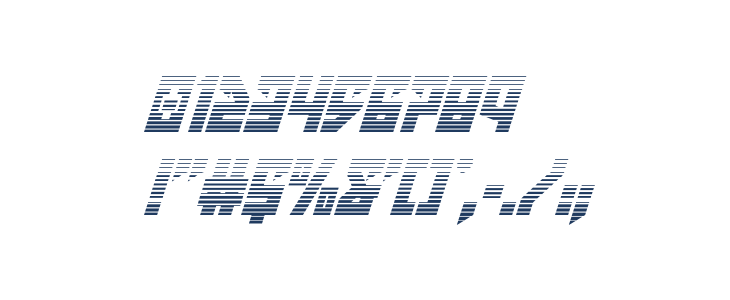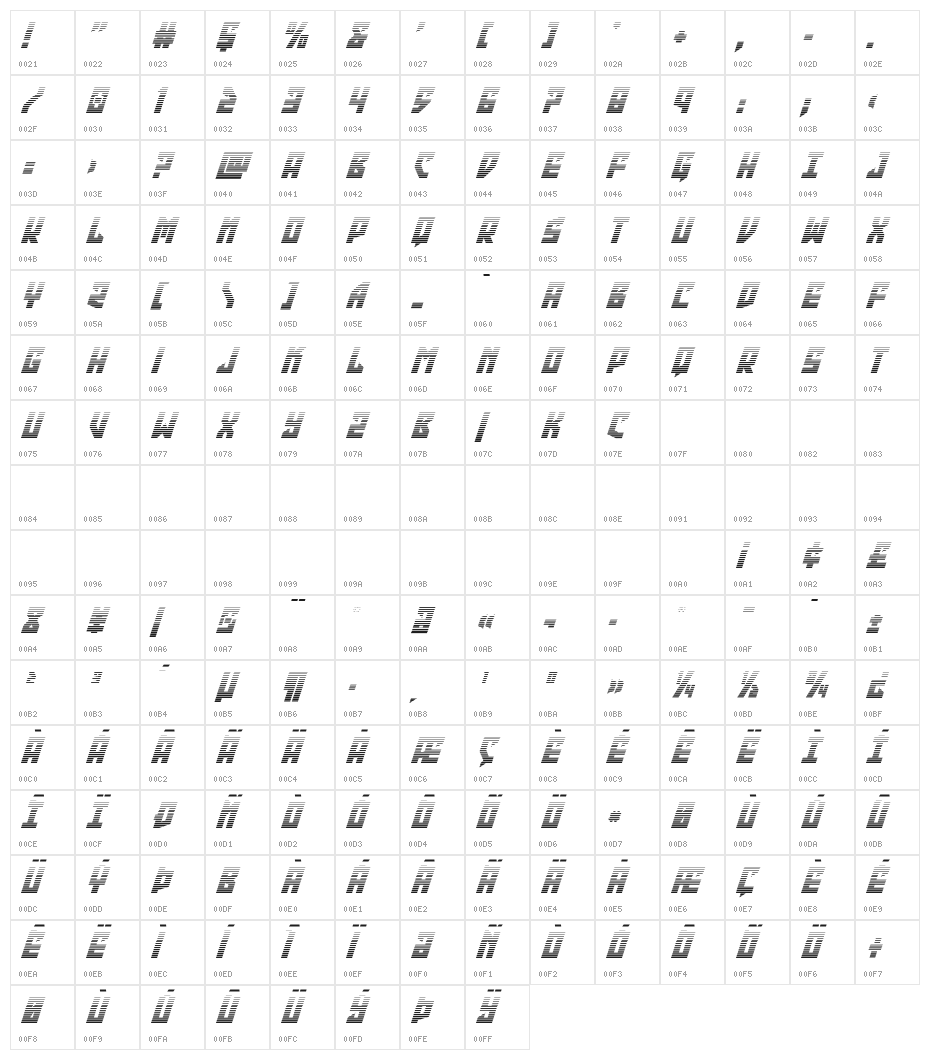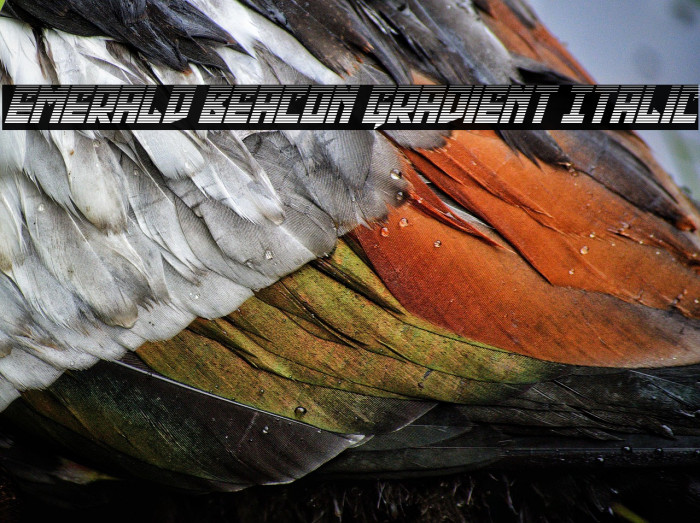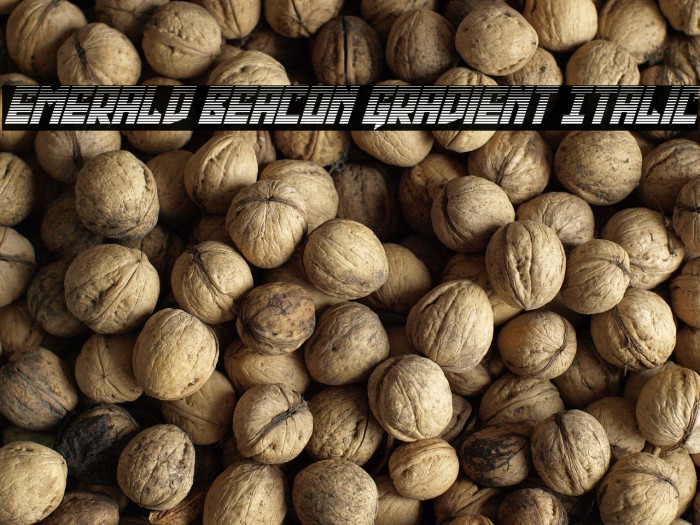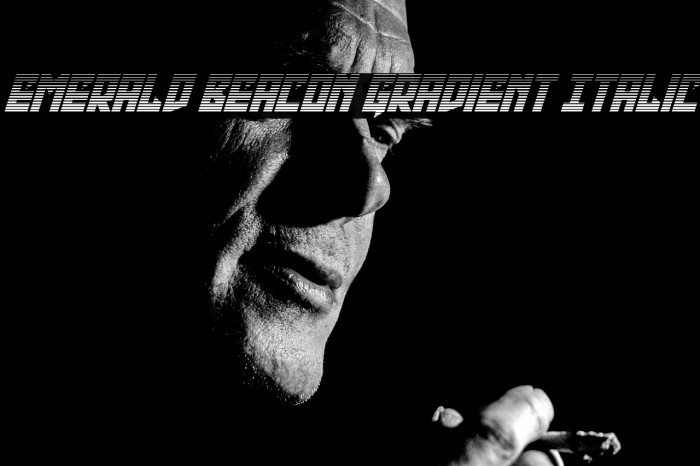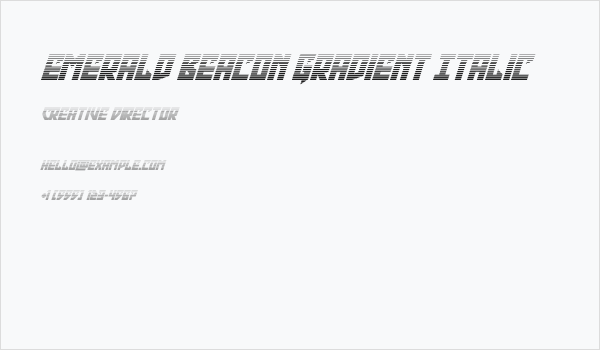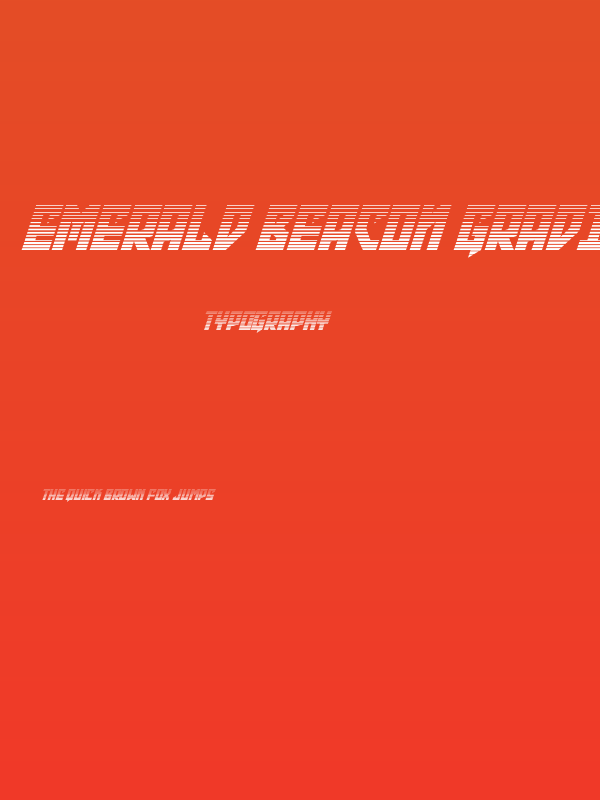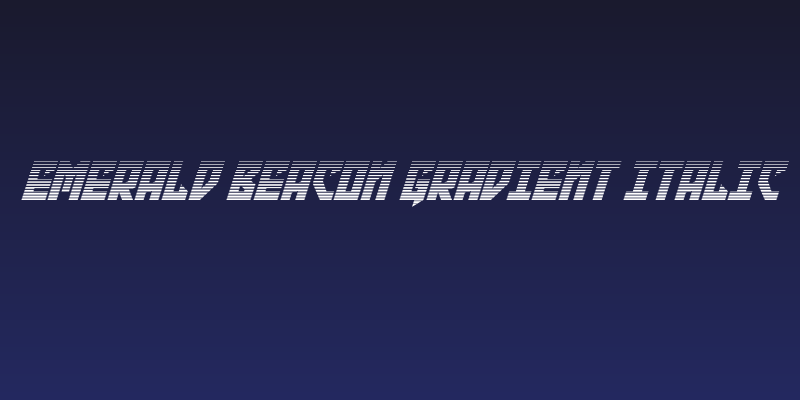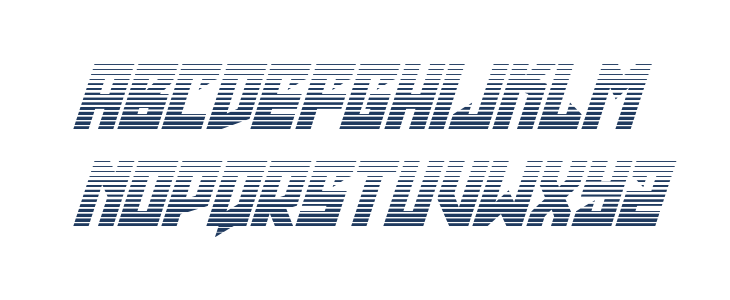
Emerald Beacon Gradient Italic Font
Emerald Beacon Gradient Italic Description
This font features a bold, dynamic design with a distinct gradient effect that gives it a futuristic and energetic appearance. The characters are italicized, adding a sense of motion and speed. Each letter is composed of horizontal lines that create a striped pattern, enhancing the modern and digital feel. The uppercase and lowercase letters maintain a consistent style, while the numbers and special characters are equally bold and striking. This font is ideal for projects that require a strong visual impact and a contemporary aesthetic.
| Proposed Projects | Ideal for sports branding, tech-related designs, futuristic posters, and dynamic logo creation. |